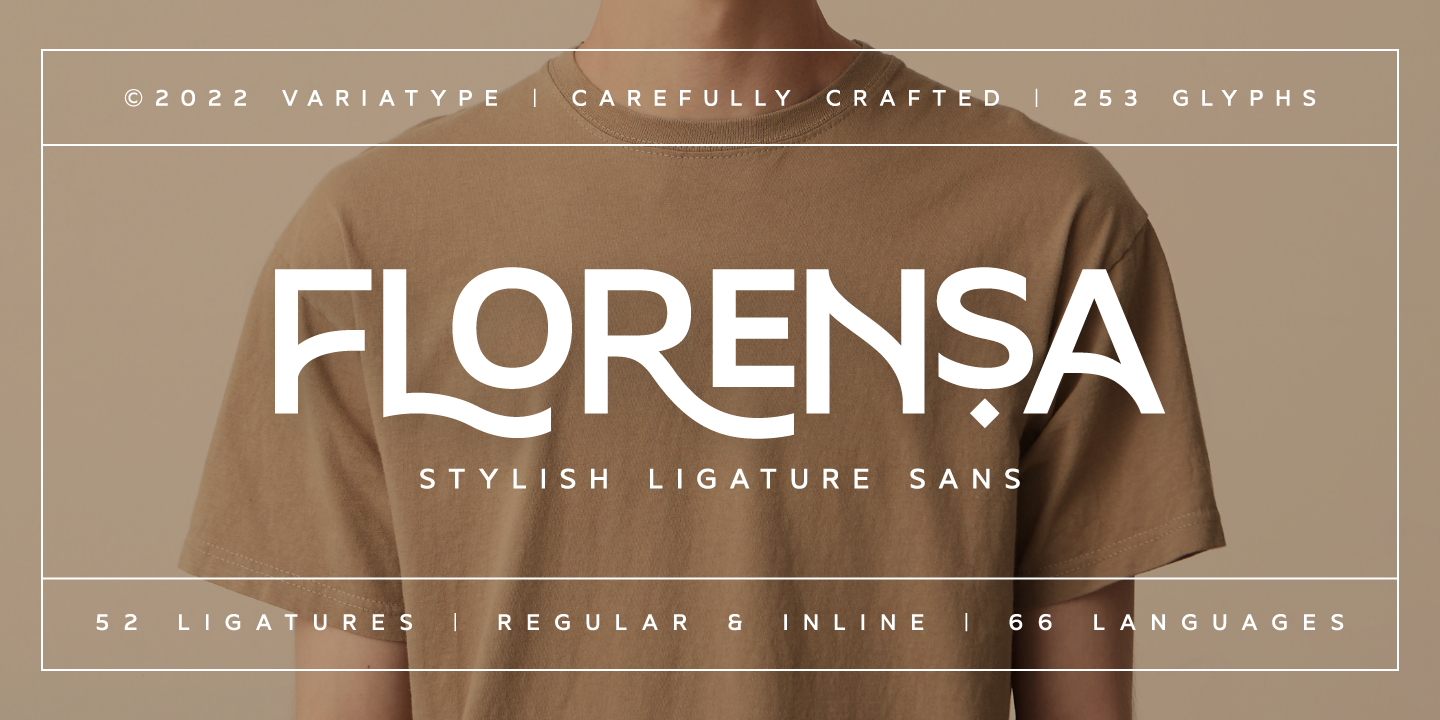
Florensa Font is perfect for botanical garden signage, elegant flower shop branding, romantic wedding invitations, spring fashion campaigns, natural beauty product packaging, garden center advertisements, floral design portfolios, and blooming lifestyle magazines. This graceful typeface excels in nature-inspired applications, botanical design projects, and any creative work requiring organic elegance that captures the essence of blooming gardens and natural beauty through delicate visual sophistication.
What makes Florensa Font exciting is its remarkable ability to embody the delicate beauty and organic grace of flowering nature through elegantly crafted letterforms that bloom with natural sophistication and gentle charm. The font features organically designed characters with floral curves and botanical proportions that evoke feelings of spring renewal and natural elegance, making it ideal for brands seeking to establish connections with nature lovers and communicate through graceful organic visual language. Its blooming presence ensures immediate recognition of natural beauty and botanical sophistication.
Florensa Font family includes multiple weights and styles: Regular, Bold, Light, Medium, Italic variations, and floral alternates with botanical embellishments and garden-inspired decorative elements. Each family member maintains the distinctive organic character while offering comprehensive design options for natural campaigns, from gentle botanical text to blooming headlines that establish natural authority and organic credibility through elegantly flowering typography.
Whether you're designing nature-inspired brand identities or creating botanical marketing campaigns, Florensa Font Free Download provides the perfect typography solution for organic branding needs. This font transforms ordinary text into beautiful natural statements that communicate botanical elegance and organic sophistication. Garden centers and natural beauty brands choose this typeface for its ability to convey floral grace through elegantly crafted letterforms that bloom across designs with natural charm and celebrate the timeless beauty of flowering nature.